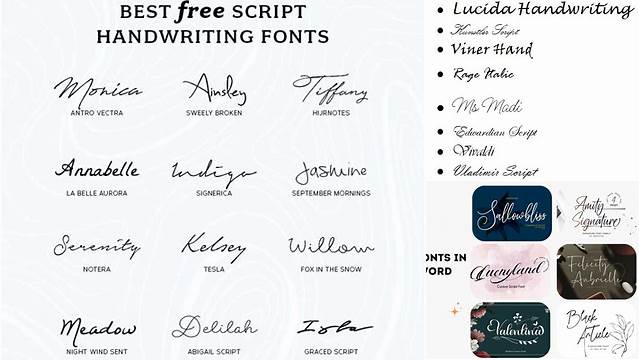
Top Cursive Fonts In Word: A Guide
Hey guys, are you looking to add a touch of elegance and personalization to your documents? Look no further! We're diving headfirst into the wonderful world of cursive fonts within Microsoft Word. I'm talking about those beautiful, flowing scripts that can transform your ordinary text into something truly special. Whether you're crafting a heartfelt invitation, designing a stylish logo, or simply want to jazz up your personal notes, selecting the best cursive handwriting fonts in Word can make all the difference. Let's explore how to find them, how to use them, and some fantastic options to get you started. This guide is your one-stop shop for all things cursive in Word, so buckle up and get ready to unleash your inner calligrapher! We'll cover everything from the basics to some pro tips and tricks. So, let's get started and find the perfect font to make your words dance on the page! Get ready to impress your friends, family, and colleagues with your newfound font expertise. Trust me; they'll be asking, "Where did you find that font?!"
Unveiling the Charm: What Makes a Great Cursive Font?
Okay, so what exactly makes a great cursive font? It's not just about pretty swirls and loops, although those are definitely a plus! A truly excellent cursive font balances aesthetics with readability. Think about it: what good is a gorgeous font if nobody can actually read what you've written? The best cursive fonts strike that perfect balance, offering a visually appealing design without sacrificing clarity. The letterforms should flow naturally, connecting in a way that feels organic and pleasing to the eye. The spacing between letters and words is crucial too. A well-designed font will have consistent spacing, preventing your text from appearing cramped or disjointed. Look for fonts with a good range of characters, including uppercase and lowercase letters, numbers, and punctuation marks. Some fonts even offer special characters or ligatures (where two or more letters are joined together for a more elegant look). Finally, consider the personality of the font. Does it convey a sense of sophistication, playfulness, or formality? The right font can instantly set the tone for your document, so choose wisely! Remember, guys, it's all about finding a font that resonates with your style and helps you communicate your message effectively. Don't be afraid to experiment with different options until you find the perfect fit. The right cursive font can transform any document from bland to brilliant! It's the secret weapon for adding that extra touch of personality and flair.
Key Features of Excellent Cursive Fonts
When searching for the perfect cursive font, it's essential to consider several key features that contribute to its overall quality and appeal. First and foremost, readability is paramount. A great cursive font should be easy to read, even at smaller sizes. This means the letterforms must be distinct and well-defined, with clear connections between characters. Secondly, flow and connection are crucial aspects. The letters should connect seamlessly, creating a natural and fluid appearance. The font should also offer a good range of characters, including uppercase and lowercase letters, numbers, and punctuation marks. Additionally, the font's aesthetic appeal is essential. Does it have an attractive design? Does it suit your intended style (formal, casual, etc.)? Consider the font's weight and style. Is it bold, regular, or light? Does it have any special features, such as ligatures? Always consider the licensing terms. Ensure the font is available for the intended use, whether personal or commercial. Finally, assess the font's compatibility. Ensure the font works well in Microsoft Word and other applications you plan to use. Taking these factors into account will greatly enhance your font selection and ensure that the chosen cursive font is both visually pleasing and functional.
Top Cursive Fonts Pre-Installed in Word
Okay, so you're ready to try out some cursive fonts, but you're not sure where to start? Lucky for you, Microsoft Word comes with a selection of pre-installed cursive fonts that are a great starting point. These fonts are readily available and easy to use, allowing you to dive right into creating stunning documents without any extra downloads. One popular choice is Brush Script MT. As the name suggests, this font mimics the look of handwriting with a brush, offering a casual and friendly vibe. It's a great choice for invitations, greetings, or anything that needs a touch of informality. Another excellent option is Script MT Bold. This font has a more classic and elegant feel, making it perfect for formal documents, certificates, or any situation where you want to convey sophistication. Edwardian Script ITC is another solid choice, known for its graceful letterforms and elegant appearance. It's ideal for adding a touch of vintage charm to your work. These are just a few examples; explore the font menu to discover other pre-installed cursive fonts that suit your style. Remember to preview each font to see how it looks with your text. Experiment with different sizes and styles to find the perfect fit. With these pre-installed options, you can quickly transform your documents and add a touch of cursive elegance. So, open up Word, head to the font menu, and start exploring! You might be surprised at what you find!
Brush Script MT and Its Appeal
Brush Script MT holds a special place in the hearts of many Word users due to its unique charm and versatility. This font beautifully captures the essence of handwritten script with a brush, offering a casual and inviting aesthetic. Its distinctive style makes it an excellent choice for a wide range of applications, from personalized invitations and greeting cards to creative designs and informal documents. The slightly rough edges and flowing strokes give it a warm and friendly feel, making it instantly approachable. This makes Brush Script MT stand out from other cursive fonts, which can sometimes appear too formal or stiff. The font's legibility is another key advantage. The letters are clear and easy to read, even at smaller sizes, ensuring your message comes across without confusion. This is especially important for applications where readability is key, like in a greeting card or a personal note. Furthermore, Brush Script MT is readily available as a pre-installed font in Microsoft Word, making it easily accessible to users of all skill levels. There's no need to download or install anything, allowing you to get started immediately. In essence, the charm of Brush Script MT lies in its unique blend of informality, readability, and ease of use. It's a go-to choice for anyone looking to infuse a touch of handwritten elegance into their documents.
Downloading and Installing New Cursive Fonts
Ready to take your cursive font game to the next level? Let's talk about downloading and installing new fonts! Microsoft Word has a great selection of pre-installed fonts, but the world of typography is vast, and there are tons of amazing cursive fonts available online. Luckily, adding new fonts to your system is a straightforward process. First, you'll need to find a font website. Some popular options include Google Fonts, DaFont, and Font Squirrel. These sites offer a wide variety of free and paid fonts. Once you've found a website you like, browse their selection of cursive fonts. Look for fonts that match your style and the purpose of your document. Once you've found a font you like, download the font file. It usually comes in a ZIP file. Extract the file. Then, double-click the font file. This will open a preview window of the font. Click the "Install" button. The font will now be installed on your computer and available in Microsoft Word. You might need to restart Word for the new font to appear in the font menu. Voila! You've successfully installed a new cursive font. Now you can use it in your documents and add even more personality to your creations. Isn't that awesome? You've expanded your font library and opened up a whole new world of creative possibilities.
Safe Sources for Font Downloads
When venturing into the world of font downloads, it's crucial to prioritize safety and security. Choosing reputable sources for your font files ensures you avoid potential malware and viruses that could harm your computer. Several trustworthy websites offer a wide selection of fonts. Google Fonts is a fantastic resource, providing a vast library of free, open-source fonts. They are carefully curated and safe to download. DaFont is another popular choice, known for its diverse collection of fonts, including many cursive options. Be mindful of the licensing terms when downloading fonts from this site. Font Squirrel is also a reliable platform, offering high-quality, free fonts. They often have excellent selections. When browsing these websites, pay attention to the website's reputation and the font's licensing terms. Avoid downloading fonts from untrusted sites or those that look suspicious. Before installing any font, scan the downloaded file with your antivirus software to ensure it's safe. This extra step can help protect your computer. Always download fonts in the correct file format (typically .ttf or .otf) for compatibility with Microsoft Word. By following these guidelines and selecting fonts from trusted sources, you can safely expand your font library and enjoy a vast array of creative options.
Customizing Cursive Fonts in Word: Tips and Tricks
Alright, now that you've mastered the basics of finding and installing cursive fonts, let's talk about how to customize them and really make your text pop! Microsoft Word offers various tools to tweak your cursive fonts and achieve the exact look you want. First, play with the font size. Cursive fonts can look different at various sizes, so experiment until you find the perfect fit for your document. Use the bold and italic options to emphasize your text. Bold can add weight and impact, while italic can create a sense of flow. Be careful not to overdo it! Use it sparingly. Experiment with font color. Choose a color that complements your cursive font and the overall design of your document. The right color can make a huge difference. Take advantage of Word's character spacing options. You can adjust the spacing between letters to create a more open or tighter look. This can be especially useful for fine-tuning the readability of your cursive text. Explore text effects. Word offers a variety of text effects, such as shadows, outlines, and glows, which can add visual interest to your cursive text. Use these effects judiciously, as too much can make your text difficult to read. Remember, the goal is to enhance the beauty and readability of your cursive font. Don't be afraid to experiment and try different combinations. With a little creativity, you can create stunning documents that are sure to impress.
Making Cursive Fonts Accessible
Ensuring accessibility when using cursive fonts requires careful attention to detail. You can start by selecting cursive fonts that are legible and easy to read. Choose fonts with clear letterforms, avoiding overly stylized or complex designs that can be hard to decipher. Use appropriate font sizes and spacing. Make sure the font size is large enough for easy reading, and ensure adequate spacing between letters and words to prevent crowding. Consider the color contrast between the text and the background. Ensure there's sufficient contrast for people with visual impairments. Provide alternative text descriptions for any cursive text used within images or graphics. Describe the content in clear and concise terms, allowing screen reader users to understand the message. Test your documents with accessibility tools. Use tools to verify that your designs are accessible, and make any necessary adjustments to meet accessibility standards. By carefully considering these aspects, you can create cursive font designs that are welcoming and usable by everyone. This will enhance accessibility and ensure that your documents are inclusive and accessible.